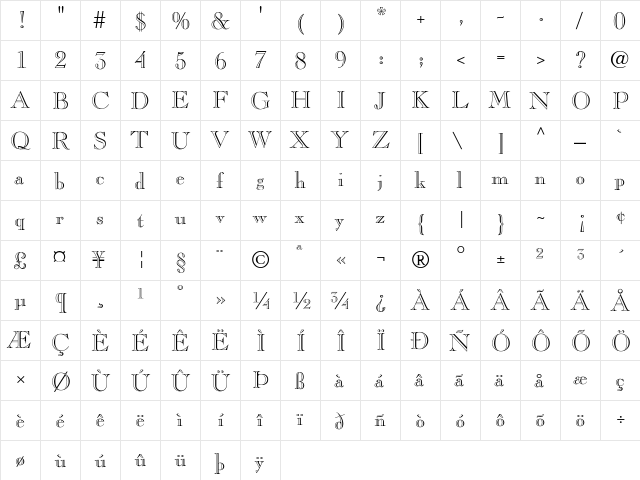
PinchiOpenFace Regular
Design Context for PinchiOpenFace Typeface
PinchiOpenFace is a composed and adaptable typeface that performs quietly and consistently across a wide range of design contexts.